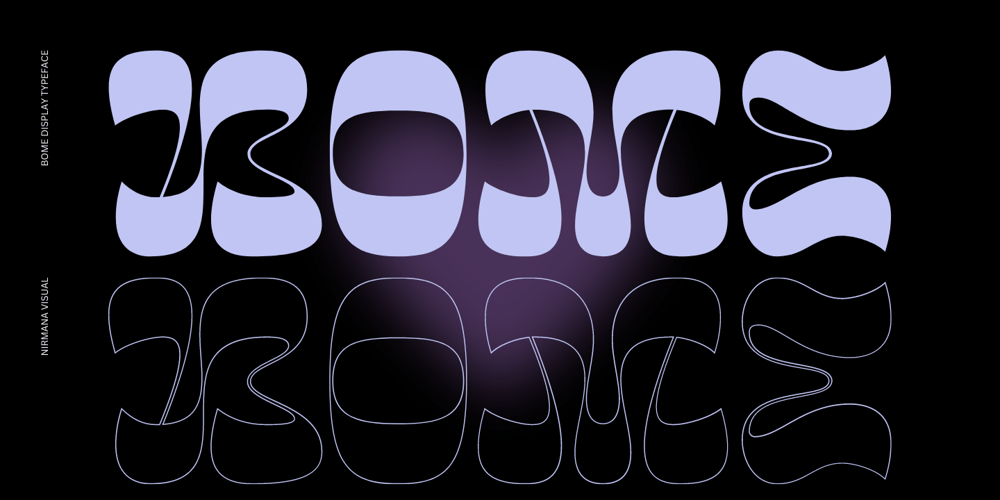
Bome Font Family was designed by Sigit Dwipa and published by Nirmana Visual. Bome contains 1 styles and family package options. Introducing Bume Display psychedelic font, designed to transport you to another dimension with its bold.With its fluid and organic shapes, our psychedelic font is perfect for creating striking headlines, logos, and branding materials that demand attention. The intricate curves and loops in this font create an ethereal and dreamlike quality that perfectly captures the essence of the psychedelic aesthetic.